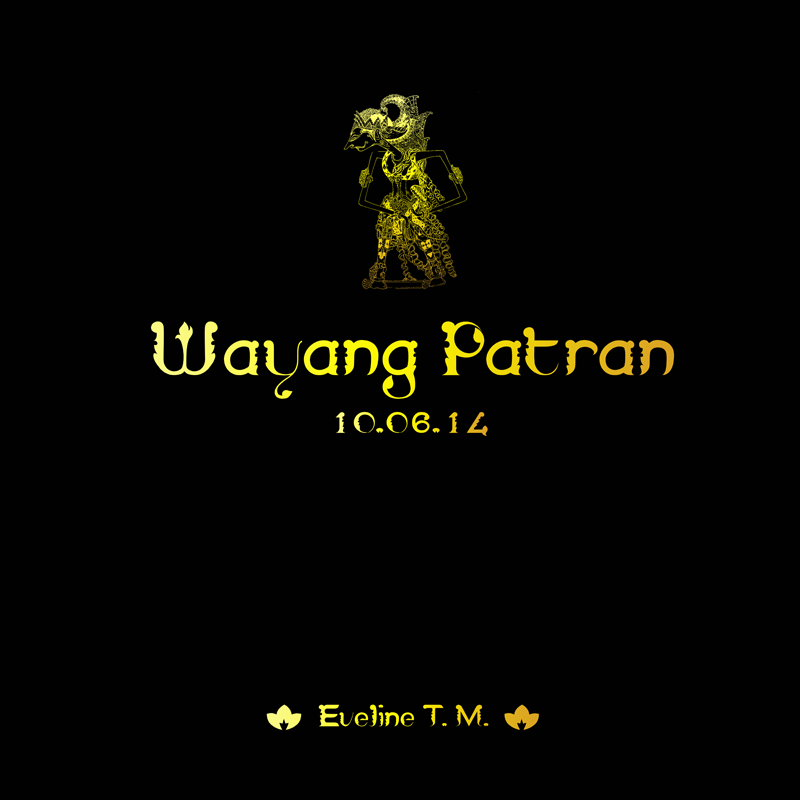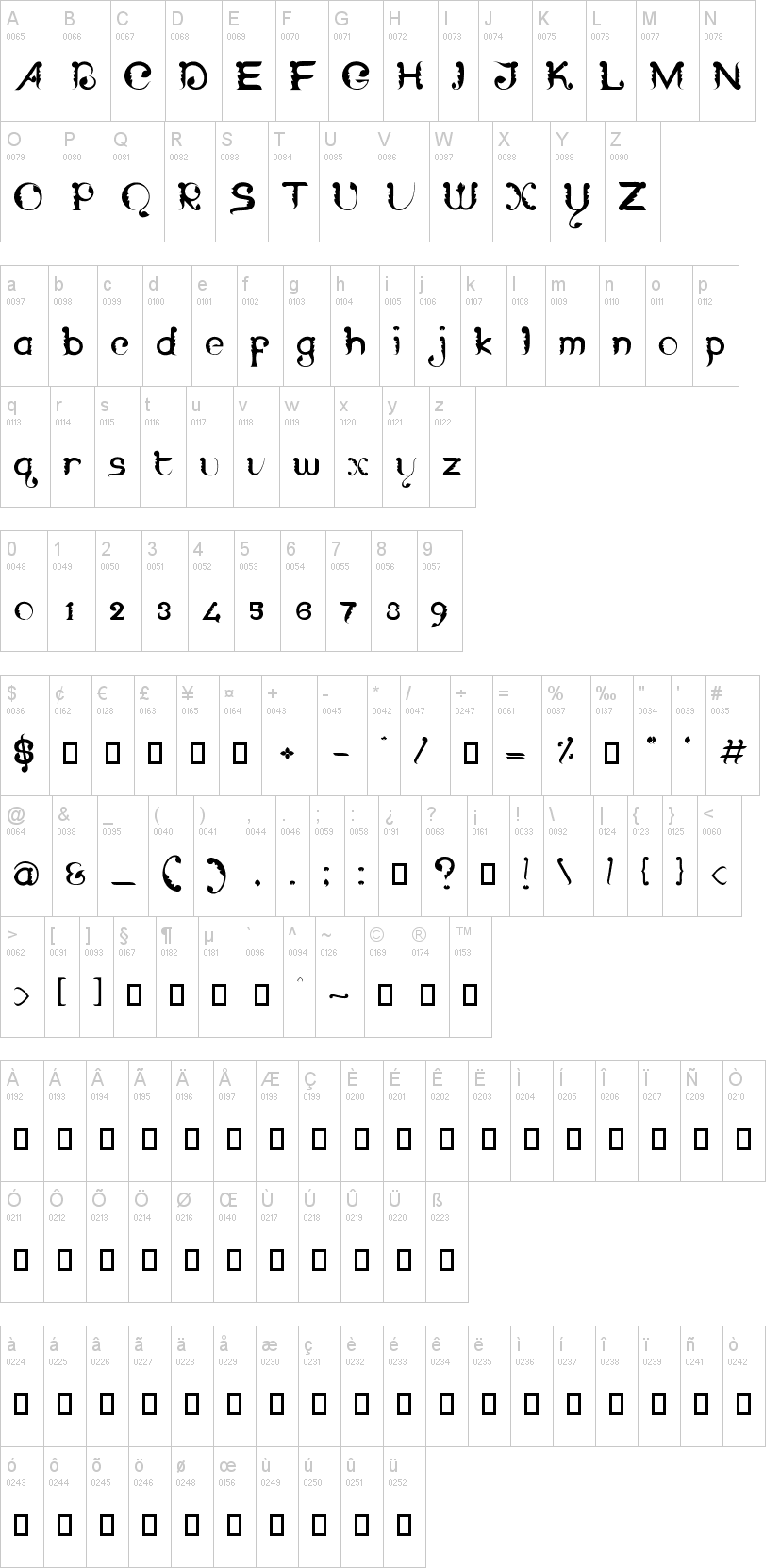
This typeface is inspired by patterns inside Wayang and Patran patterns.
Wayang
Wayang is an original puppet theatre from Indonesia. The puppet itself is called wayang. The performance shows the shadows of puppets and is accompanied by a gamelan orchestra.
Patran
Patran is a Javanese ethnic pattern that looks like stacked leaves in rows. Usually, it is crafted on the narrow and long part of a building.